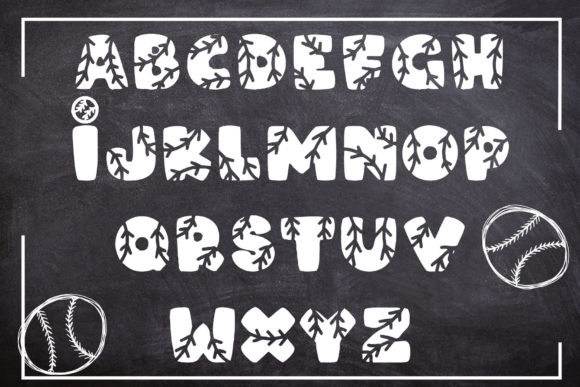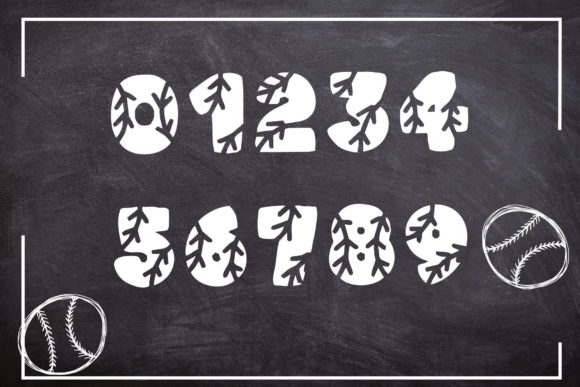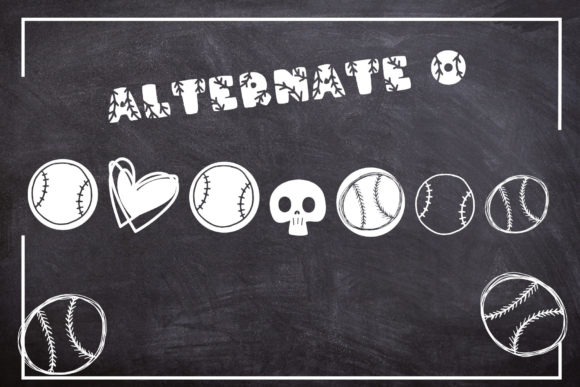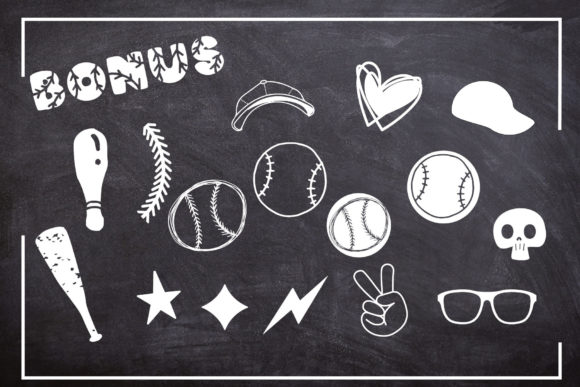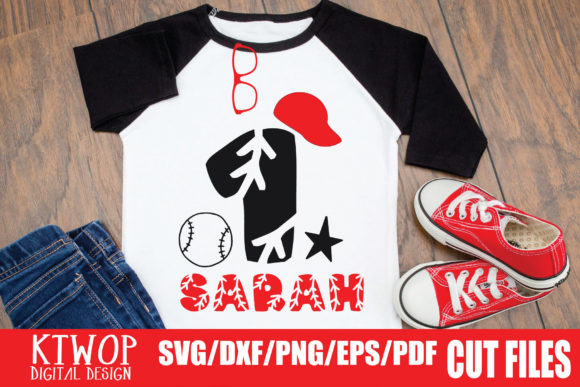
Hit a Home Run with the Perfect Font
Do you remember the thrill of your first baseball game, the crack of the bat, and the roar of the crowd? For many of us, those memories are etched in our minds like a perfectly pitched fastball. As a designer, I’ve found that capturing that same sense of excitement and playfulness in our work is just as crucial.
That’s where Baseball Rookies Font comes in – a cool and sporty display font that embodies the very essence of childhood wonder. This chunky lettered font is perfect for any children’s activity or school project, bringing an instant dose of authenticity and personality to your designs.
As a designer, you’re always on the lookout for the perfect font to elevate your work. Baseball Rookies Font is a valuable addition to your toolkit, guaranteed to make your designs come alive and leave a lasting impression on your audience.
Baseball Rookies Font Key Features
- Unique Characteristics: The font features a unique, handwritten style with a vintage feel, reminiscent of classic baseball fonts from the early 20th century.
- Character Set: The font includes a wide range of characters, including uppercase and lowercase letters, numbers, punctuation marks, and special characters, making it suitable for use in a variety of applications.
Designer Review: Baseball Rookies Font
Overall, I’m impressed with the Baseball Rookies Font. Here’s what works well: ✨ The font’s nostalgic feel is perfect for sports-themed projects, especially baseball-related ones. The classic, retro vibe is captured beautifully, making it a great choice for vintage-style designs. ✨ The font is also highly legible, even at smaller font sizes, which is essential for any project.
The font’s design is well-executed, with a clear and consistent style throughout. The creator has done a great job of capturing the essence of vintage baseball typography, making it a unique and valuable addition to any designer’s font collection.
- ⚠️ The font’s versatility is somewhat limited to sports-themed projects, which may not be ideal for designers working on diverse projects.
- ⚠️ Some characters may require manual adjustments to achieve the perfect vintage look, which can be time-consuming.
- ⚠️ The font lacks a comprehensive character set, which may cause issues for designers working on projects requiring extensive character support.
Overall, I’d highly recommend the Baseball Rookies Font to designers working on sports-themed projects or those looking for a unique, vintage aesthetic. While it has some limitations, the font’s strengths make it a valuable addition to any designer’s font collection.
Common use cases for Baseball Rookies Font include:
- Sports-themed designs, such as baseball jerseys or posters.
- Childhood-inspired designs, such as birthday party invitations or nursery decor.
- Summer-themed designs, such as beach or pool party invitations.
Remember to adjust the font size and style to ensure readability and visual appeal.